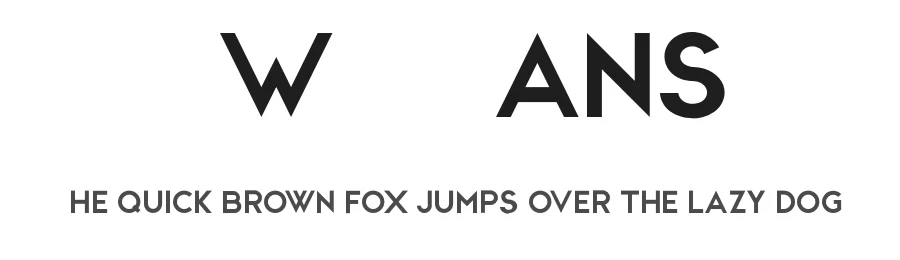
About Gatha Sans Font
Gatha is a playful font duo that includes a signature script and a elegant sans Β already matched up and ready to be used together for your next design!
Gatha Sans Font
by Khaiuns